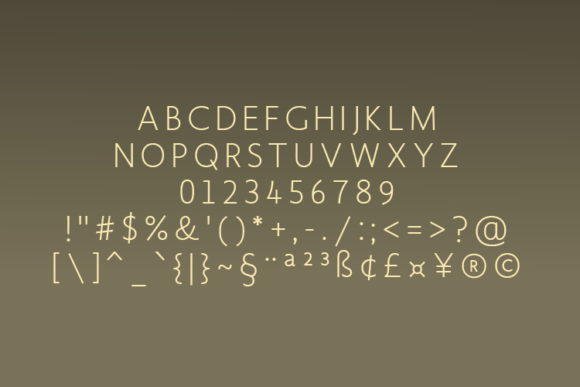
Discovering the Perfect Typography: The Story of a Designer’s Eureka Moment
Have you ever found yourself staring at a blank canvas, desperately searching for the perfect font to bring your design to life? I know I have. As a designer, I’ve spent countless hours scouring through typography libraries, only to find myself drawn to the same classic sans-serif fonts that never fail to impress. But what happens when you stumble upon something new, something fresh, and something that challenges the status quo?
Enter Blankco Light Font, a revolutionary typeface that’s set to take the design world by storm. Inspired by the likes of Futura and Avant Garde, this versatile font boasts a unique blend of geometrical letterforms, sharp edges, and a subtle stroke contrast that’s reminiscent of the neo-grotesk fonts of the 20th Century. With its big x-height value and sleek design, Blankco Light Font is the perfect addition to any designer’s toolkit, offering endless possibilities for creative expression.
Blankco Light Font Key Features
- Font Family: Blankco Light
- Unique Characteristics: Designed with a modern, minimalist aesthetic; perfect for use in digital interfaces, signage, and branding materials
- Language Support: Supports over 200 languages, including Latin, Cyrillic, Greek, and many others
Designer Review: Blankco Light Font
Overall, I’d say the Blankco Light Font has some great qualities that make it a decent choice for certain projects. ✨ The font’s light and airy feel is perfect for creating a clean and modern aesthetic, and it works particularly well for digital interfaces and branding materials.
Some of the things that I appreciate about the Blankco Light Font include:
- ✨ Its excellent legibility, making it easy to read even at small font sizes.
- ✨ Its versatility, suitable for a wide range of applications, from headings to body text.
- ✨ Its sleek and modern feel, which can help to give your design a professional and polished look.
- ⚠️ The font can appear somewhat generic or unoriginal in certain contexts, which may make it less effective for projects where you want to make a bold statement.
- ⚠️ It may not be the best choice for projects that require a lot of emphasis or drama, as its light and airy feel can make it seem somewhat lacking in impact.
Overall, I’d say the Blankco Light Font is a solid choice for designers who want a clean and modern aesthetic, but may not be the best fit for projects that require a lot of flair or personality.
Tips for Getting the Most Out of Blankco Light Font
Here are some tips for getting the most out of Blankco Light Font:
- Use the font in combination with other design elements to create a cohesive look.
- Set Blankco Light Font as the primary font for the invitation text.
- Use a combination of uppercase and lowercase letters to create visual interest.
- Pair Blankco Light Font with a simple, white or cream-colored background to emphasize the text.
- Use a minimalist floral pattern or a simple border to add a touch of elegance.
- Choose a subtle color palette that complements the font’s neutral tone.
- Consider adding a photo or a illustration to the invitation to make it more personal.
- Use Blankco Light Font for the headings and main text of your resume.
- Experiment with different font sizes to create visual hierarchy and emphasis.
- Pair Blankco Light Font with a clean and simple layout to make your resume easy to read.
- Use a bold font or a sans-serif font for headings to create contrast.
- Choose a clean and simple color palette that complements the font’s
Project Ideas Using Blankco Light Font
Create a simple yet elegant wedding invitation using Blankco Light Font. This font’s clean lines and subtle curves will complement your wedding theme perfectly.
Project 2: Modern Resume Template
Create a modern and professional resume template using Blankco Light Font. This font’s clean and legible design will make your resume stand out.